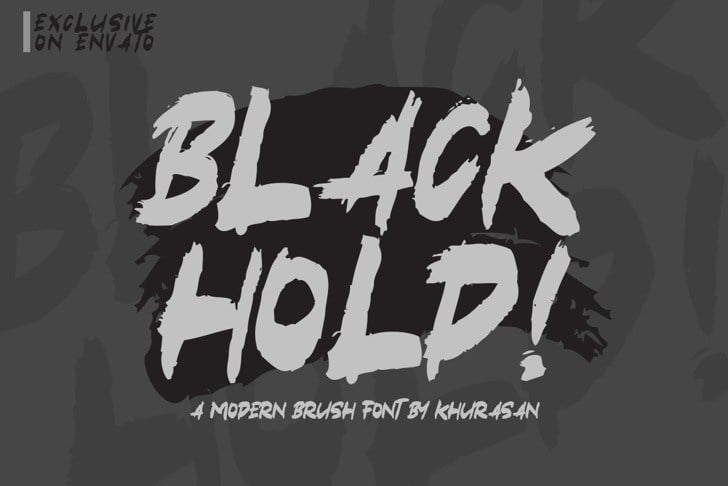
Black Hold Brush Font
Black Hold Font comes with uppercase, lowercase, standard punctuation, numerals and special letters for most of the European.
Black Hold Font– an expressive handwritten font with a personal charm. With quick dry strokes and a signature style,
Black Hold is perfect for branding projects, homeware designs, product packaging – or simply as a stylish text overlay to any background image.